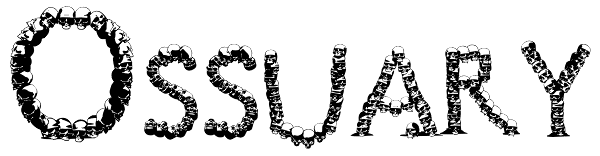
Ossuary
Ossuary is a font in which each letter is formed using a uniquely arranged pile of skulls. The font was originally designed to be caps only, but small caps were added for convenience. There is now a character for each typeable letter of the American...